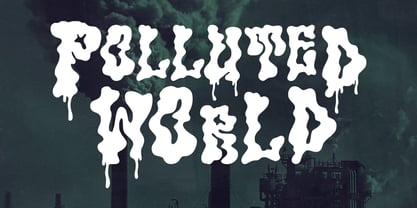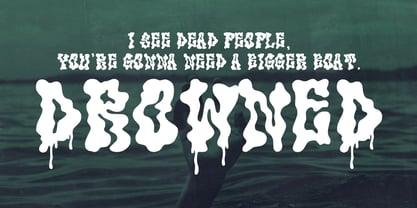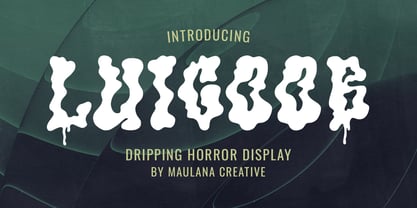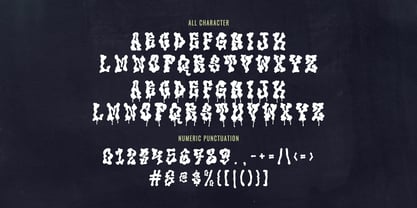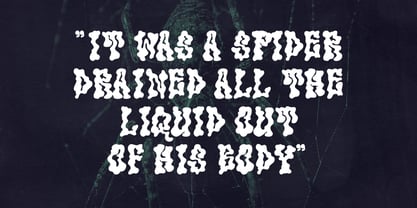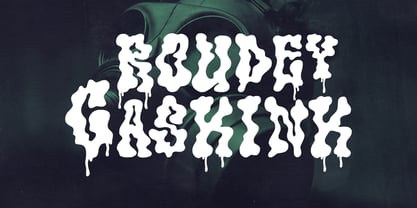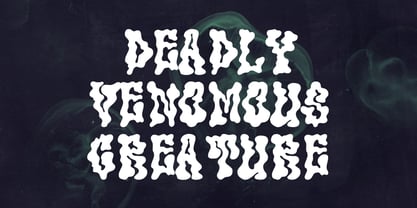
MC Luicoob
von Maulana Creative
Die Schriftfamilie MC Luicoob wurde von Gilang Maulana entworfen und von Maulana Creative veröffentlicht. MC Luicoob enthält 1 Stile. Mehr über diese Familie
Introducing Luicoob, a chilling and captivating display font designed to inject an immediate sense of horror and mystery into your projects. This typeface features bold, chunky letters with a unique liquid, melted, and dripping effect, making it perfect for designs that need to look sinister, gooey, or freshly slimy. Horror aesthetic, perfect for conveying themes of fear, movies, vintage horror, or a macabre atmosphere. Distinct dripping style, each character boasts authentic looking drips, as if blood, or slime is running off the letters. Versatile display use, ideal for large scale applications where high impact is needed. Ideal for halloween party invitations, costumes, event, album covers, movie, thriller, zombie films, brand identity and more.
Designer: Gilang Maulana
Foundry: Maulana Creative